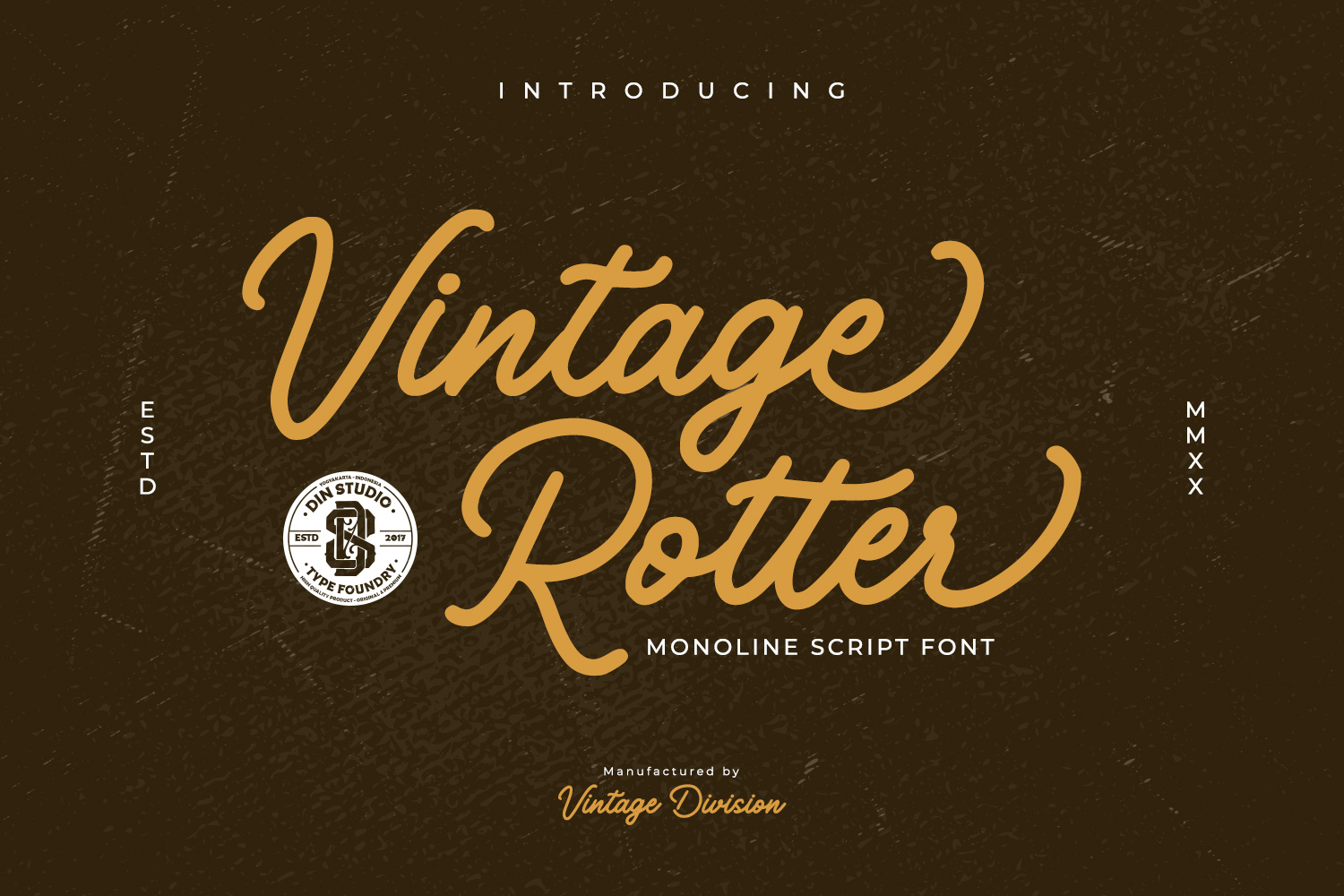
Hello, awesome people! This is the Vintage Rotter, a monoline script font made for any professional project branding. It is best used for branding, printing, weddings, and quotes. Every letter has a unique and beautiful touch
- Alternates
- Standard Ligatures
- Multilingual Supports
Vintage Rotter fits in headlines, logos, posters, flyers, branding materials, print media, editorial layouts, and many more. Find out more ways to use this font by taking a look at the font preview.